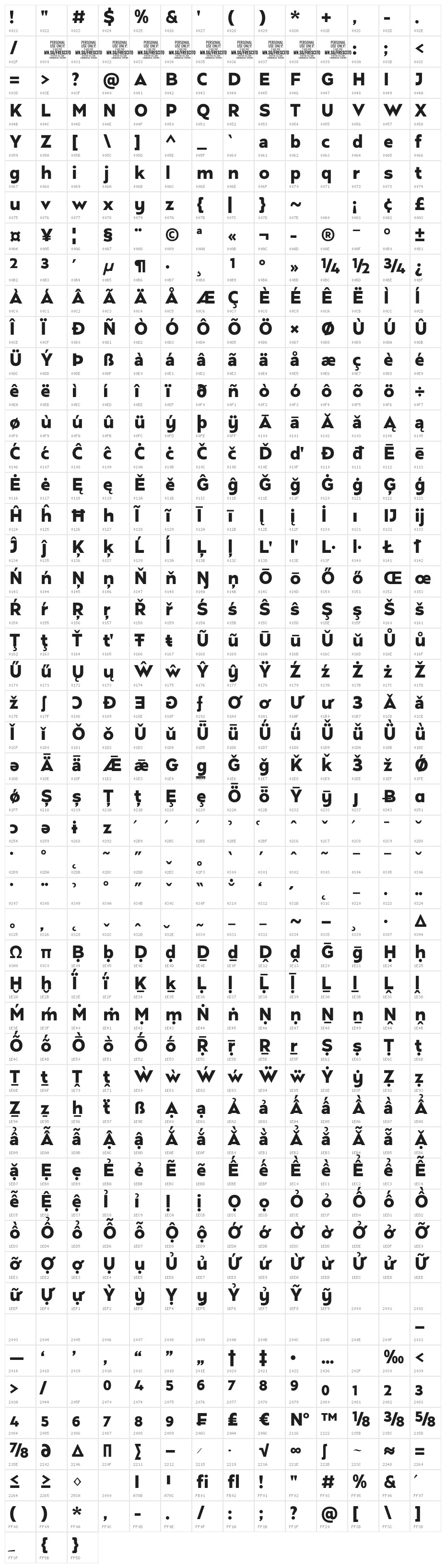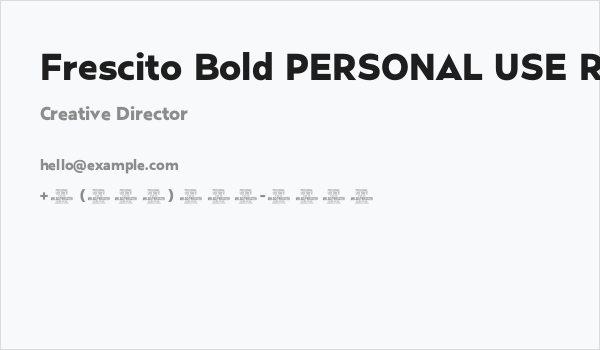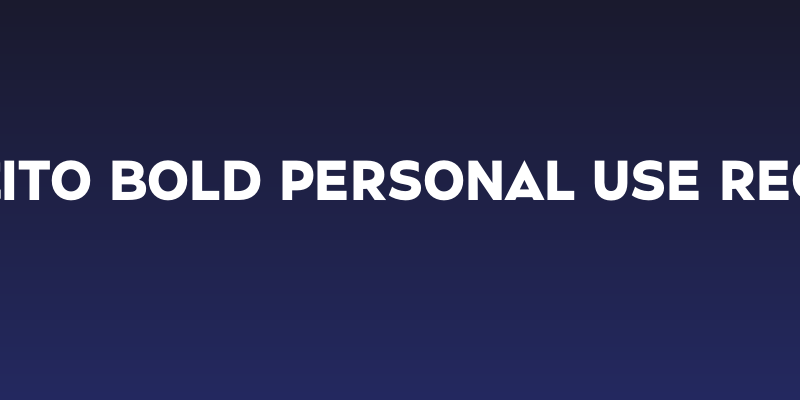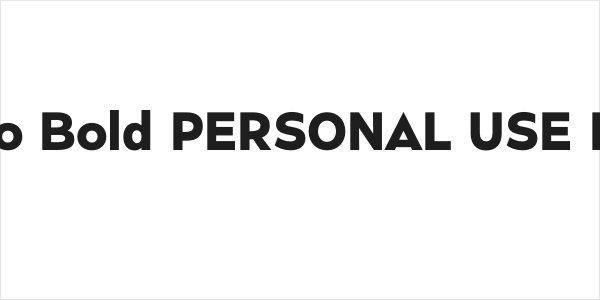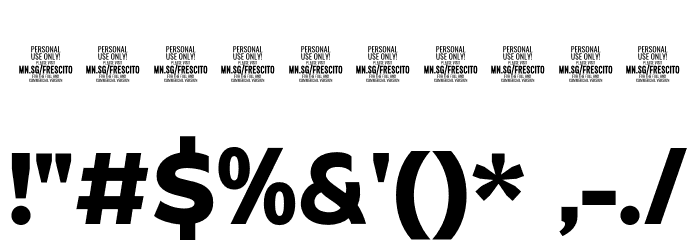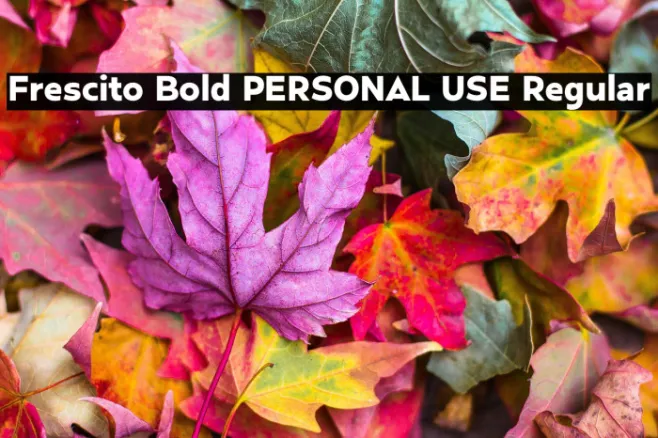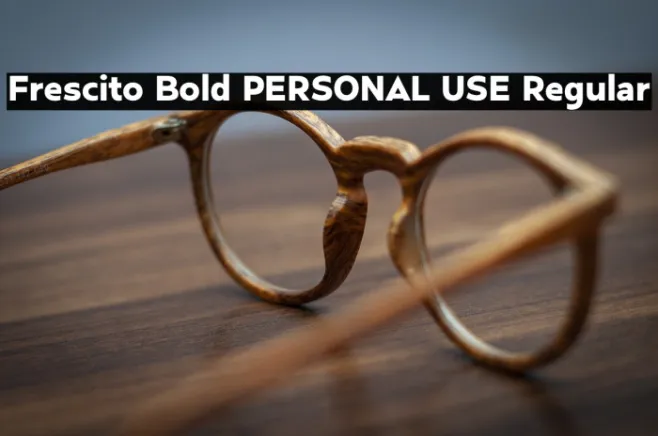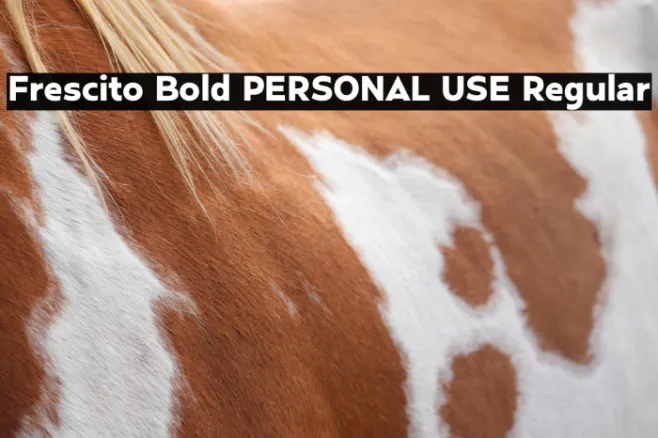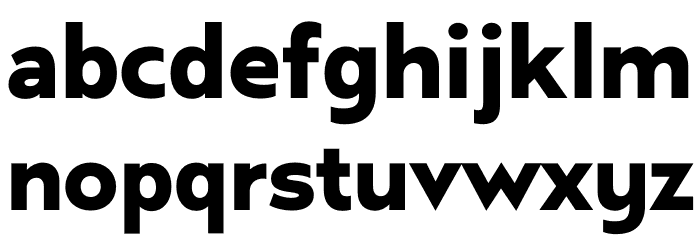
Frescito Bold PERSONAL USE Regular Font
Frescito Bold PERSONAL USE Regular Description
This font features a bold and modern sans-serif style with clean, geometric lines and a strong presence. The uppercase letters are uniform in height, creating a cohesive and balanced look. The lowercase letters maintain a similar geometric structure, offering a consistent visual flow. The numerals are clear and easily distinguishable, while the special characters complement the overall design. This font is versatile, suitable for various design applications where a bold and contemporary aesthetic is desired.
| Use Case | Headlines, Logos, Branding |
| Proposed Projects | Ideal for branding, advertising, headlines, and digital media where a strong, modern look is needed. |